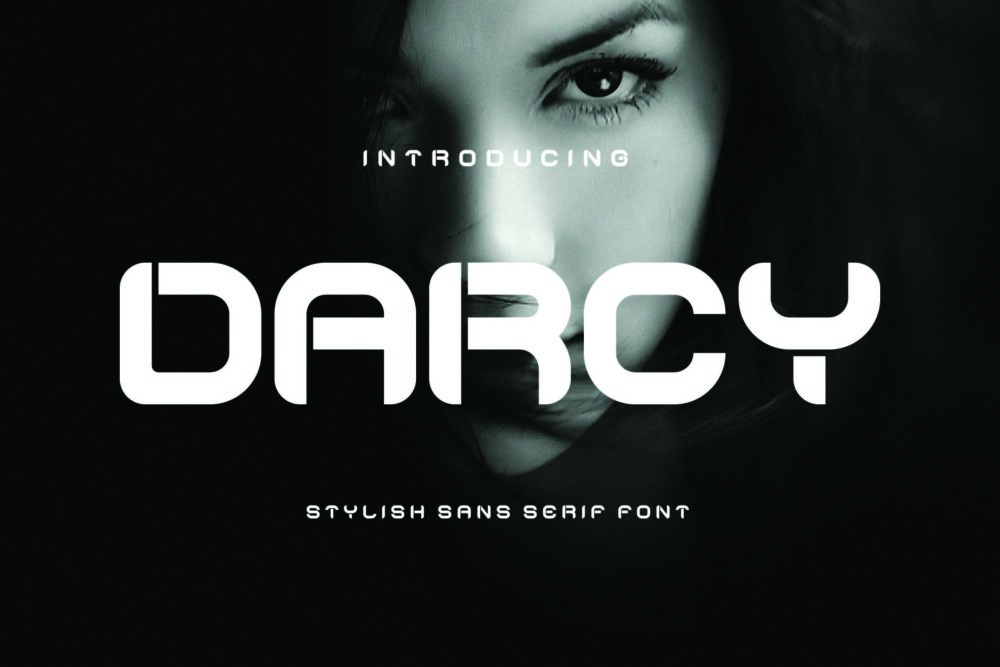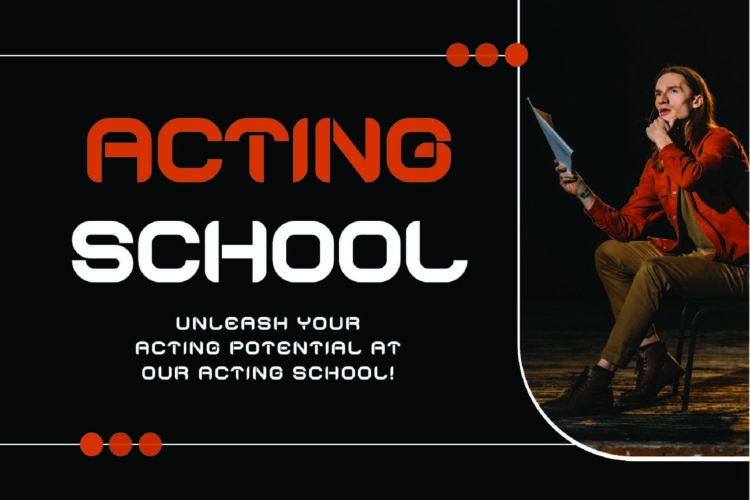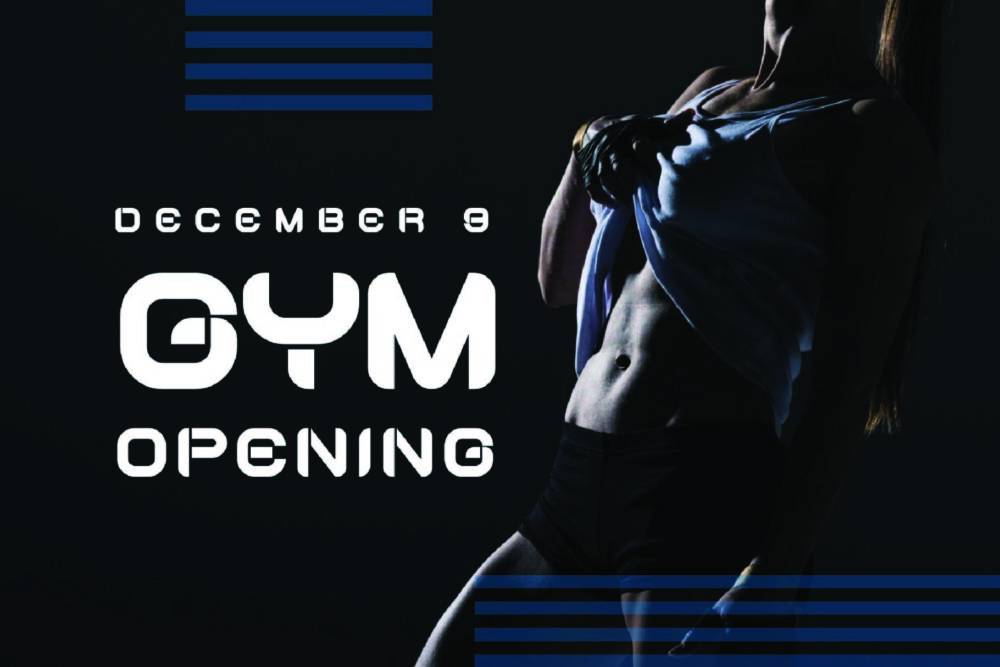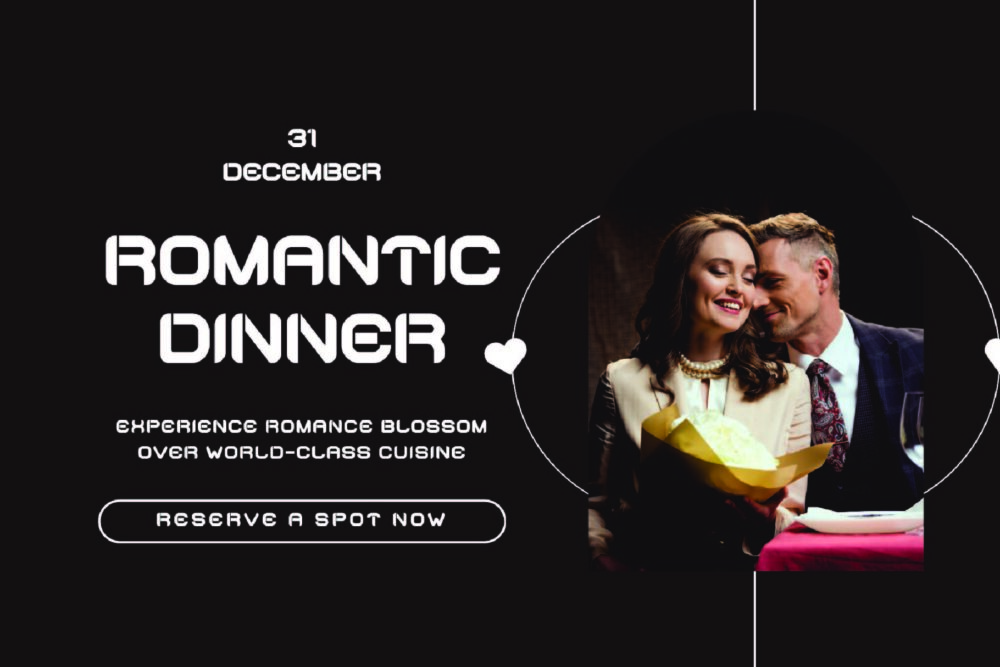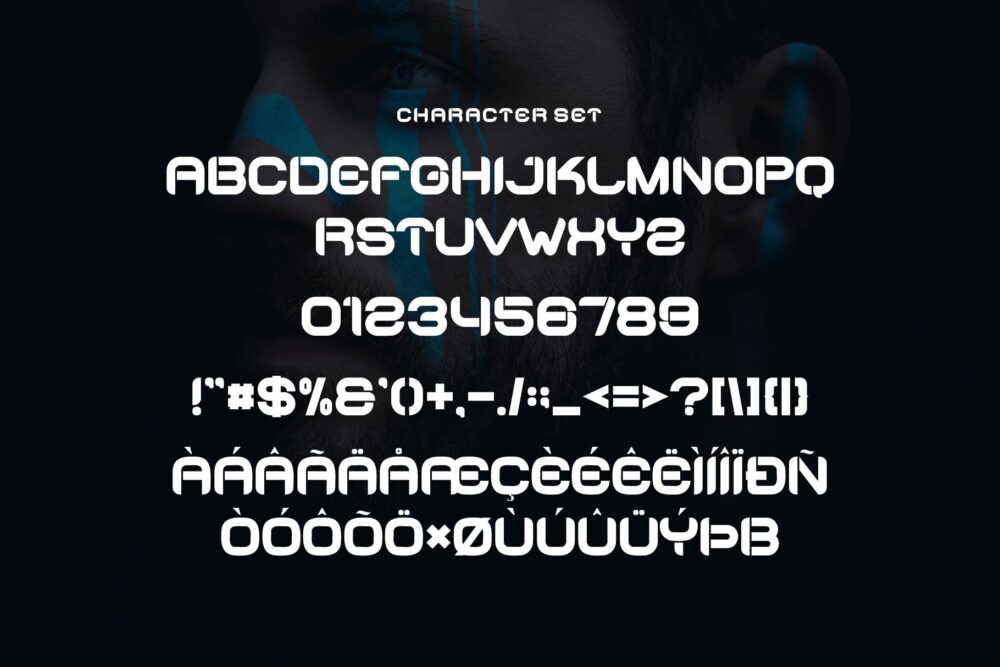
Darcy
Darcy Sans Font Typeface inspired by the famous minimalist logo perfect for the purposes of designing templates, brochures, videos, advertising branding, logos, invitation, layout design, elegant crafting, beauty design and other.
Darcy – Stylish Sans Serif Font